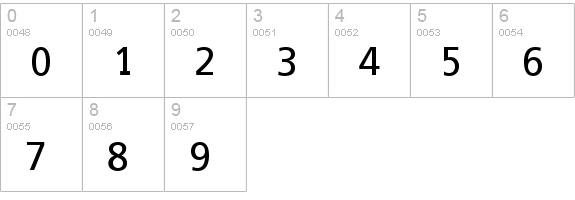
FreewayRoman1 Font Details
FreewayRoman1 font is a sleek and modern typeface that effortlessly combines elegance with readability. Its clean lines and classic design make it a versatile choice for a wide range of projects, from branding to editorial design. The font exudes a sense of sophistication and professionalism, making it ideal for conveying a polished and refined look. What sets FreewayRoman1 font apart is its versatility and adaptability to various design contexts. Whether you're working on a logo, packaging, website, or print materials, this font will elevate your project with its timeless appeal and contemporary edge. It strikes the perfect balance between traditional and contemporary aesthetics, making it suitable for both classic and modern design themes. One of the best things about FreewayRoman1 font is that it is completely free to download at FontsMarket.com. This means that you can access this premium quality font without any cost, making it a valuable addition to your font library. Whether you're a seasoned designer or just starting out, FreewayRoman1 font offers a professional and stylish option for your typographic needs. Experience the elegance and versatility of FreewayRoman1 font today by downloading it for free at FontsMarket.com. Elevate your design projects with this sophisticated and modern typeface that is sure to make a lasting impression.